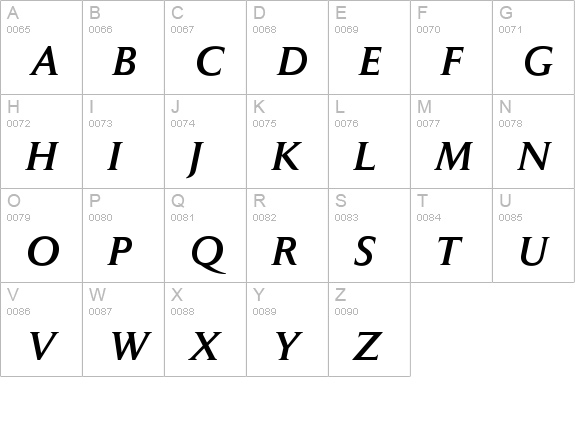
Jaeger Daily News Medium Italic is a balanced, medium-weight, italic variant in the Jaeger typeface family \xE2\x80\x94 well suited to sub-headlines, navigation, and balanced editorial work.
Introducing Jaeger Daily News Medium Italic font, a captivating and versatile typeface that effortlessly combines modern aesthetics with a classic charm. Designed to capture attention and make a statement, this font is the perfect choice for various mediums, including newspapers, magazines, websites, and more. With its sleek and sophisticated design, Jaeger Daily News Medium Italic font adds a touch of elegance to any project. Its unique italic style creates a sense of movement and fluidity, making it ideal for capturing the essence of dynamic and engaging content. One of the standout features of Jaeger Daily News Medium Italic font is its exceptional readability. Each letter is meticulously crafted to ensure clarity and legibility, even at smaller sizes. This makes it an excellent choice for lengthy articles or bodies of text, as it allows readers to effortlessly absorb the information presented. But what sets Jaeger Daily News Medium Italic font apart is that it is freely available to download at FontsMarket.com. Whether you are a seasoned designer or just starting out, you can access this remarkable font without any cost. This makes it a valuable addition to your font library, allowing you to explore new creative possibilities without breaking the bank. So why wait? Enhance your designs with the timeless elegance of Jaeger Daily News Medium Italic font. Download it for free at FontsMarket.com and elevate your projects to new heights of visual excellence.